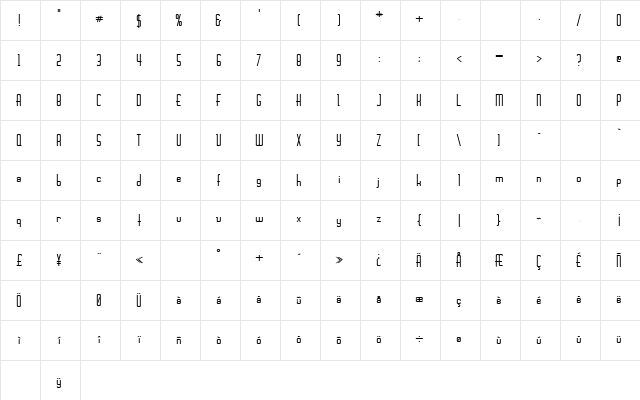
Calamaro-Bold Bold
Design Context for Calamaro-Bold Typeface
Calamaro-Bold is a composed and adaptable typeface that performs quietly and consistently across a wide range of design contexts. Its bold stroke weight gives it real presence on the page.